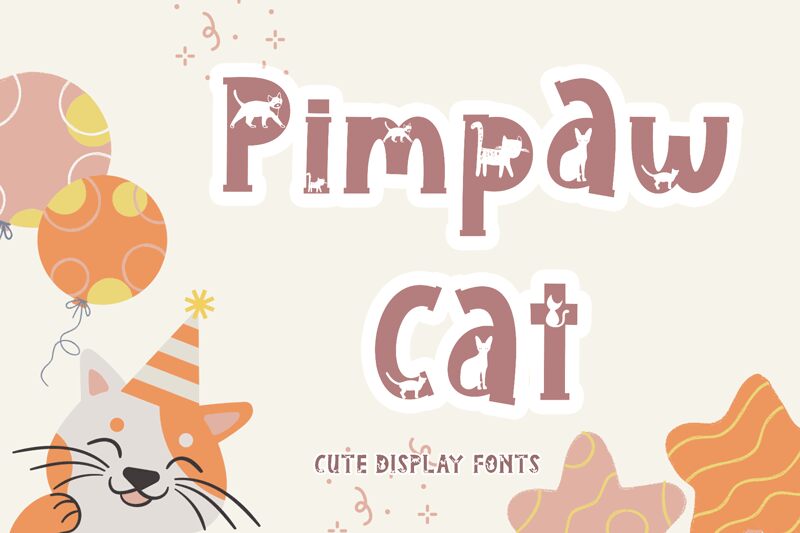
Pimpaw Cat, a captivating display font designed by Yoga Letter, exudes an unmistakable flair and character. This decorative typeface boasts striking, angular letterforms that command attention, evoking a sense of playful sophistication. The unique treatment of the letterforms, with their dynamic curves and sharp vertices, lends the font a distinctly modern and whimsical aesthetic. Pimpaw Cat's alluring presence makes it a standout choice for projects requiring a touch of personality and visual intrigue.
Pimpaw Cat's versatility shines through its ability to adapt to a wide range of design applications. From eye-catching headlines and impactful logos to playful branding and experimental typography, this font possesses the versatility to elevate any project with its distinctive flair. Its bold and attention-grabbing nature makes it an excellent choice for attention-grabbing designs, while its decorative qualities lend themselves beautifully to creative and expressive projects.